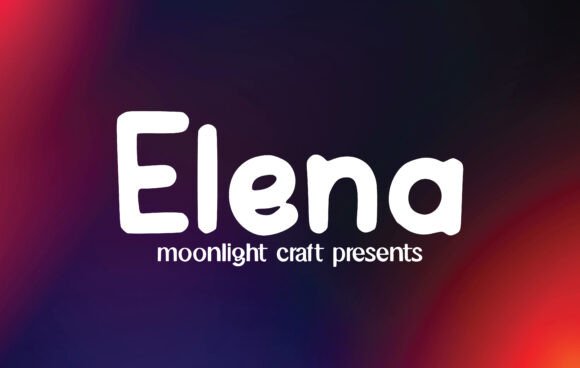
Elena Font: Elevate Your Designs with this Lovely Handwritten Font
Are you a designer or crafter looking for a font that can take your creative ideas to the next level? Look no further than Elena Font, a beautiful handwritten font that is sure to impress. With its unique charm and character, Elena Font is the perfect choice for creating eye-catching logos, branding, and quotes that will leave a lasting impression on your audience.
The Beauty of Elena Font
Elena Font is a stunning handwritten font that exudes elegance and sophistication. Its flowing lines and delicate curves give it a whimsical feel that is perfect for designs that require a touch of personality. Whether you’re creating a logo, branding materials, or social media graphics, Elena Font is sure to add a level of refinement and style that will set your designs apart from the rest.
Why Choose Elena Font?
So why choose Elena Font over other fonts? Here are just a few reasons why Elena Font is a top choice among designers and crafters:
• Unique Character: Elena Font has a unique character that is both elegant and playful. Its handwritten feel gives it a personal touch that is perfect for designs that require a human touch.
• Versatility: Elena Font is incredibly versatile and can be used for a wide range of design projects, from logos and branding to quotes and social media graphics.
• High-Quality: Elena Font is a high-quality font that is designed to produce crisp and clear results, even at small sizes.
Elena Font is perfect for designers and crafters who are looking for a font that can help them create stunning designs. Whether you’re creating:
• Logos: Elena Font is perfect for creating eye-catching logos that will help your brand stand out.
• Branding Materials: Elena Font can be used to create a wide range of branding materials, from business cards to letterheads.
• Quotes: Elena Font is perfect for creating inspirational quotes and social media graphics that will engage your audience.
• Social Media Graphics: Elena Font can be used to create stunning social media graphics that will help you connect with your audience.
Tips for Using Elena Font
Here are a few tips for using Elena Font to get the most out of this beautiful handwritten font:
• Use it as a Headline Font: Elena Font is perfect for use as a headline font, where its unique character can really shine.
• Pair it with Other Fonts: Elena Font can be paired with other fonts to create a unique and interesting design.
• Experiment with Colors: Elena Font looks great in a wide range of colors, so don’t be afraid to experiment and find the perfect color for your design.
Elena Font is a beautiful handwritten font that is perfect for designers and crafters who are looking for a font that can help them create stunning designs. With its unique character, versatility, and ease of use, Elena Font is sure to become a top choice among designers and crafters. So why wait? Download Elena Font today and take your designs to the next level!